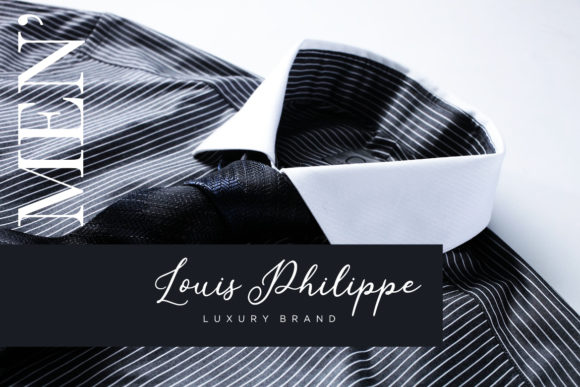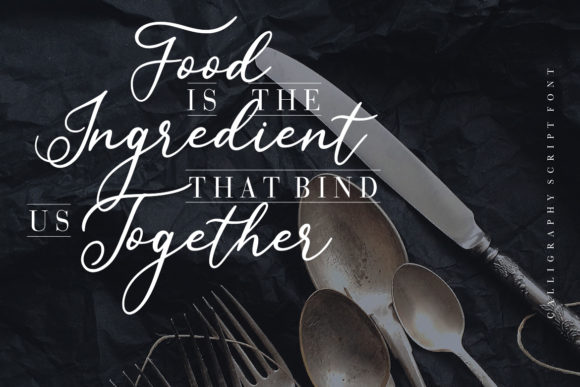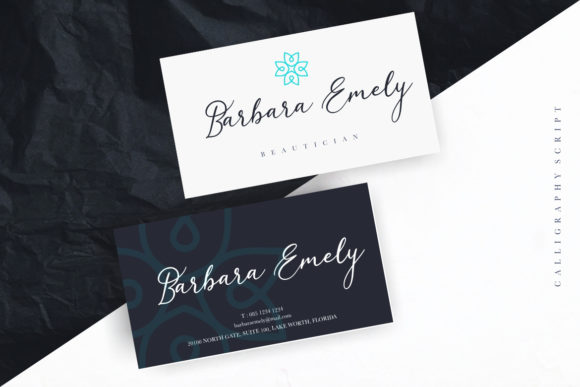
Introduction to Jelymist Font
Jelymist is a classic calligraphy script with a cool twist.
Use it to turn any design project into a true standout .
Key Features of Jelymist Font
Why Choose Jelymist Font?
Jelymist Font offers exceptional quality and versatility, making it a valuable addition to your design toolkit. Whether you’re creating for personal projects or commercial use, Jelymist Font delivers professional results.